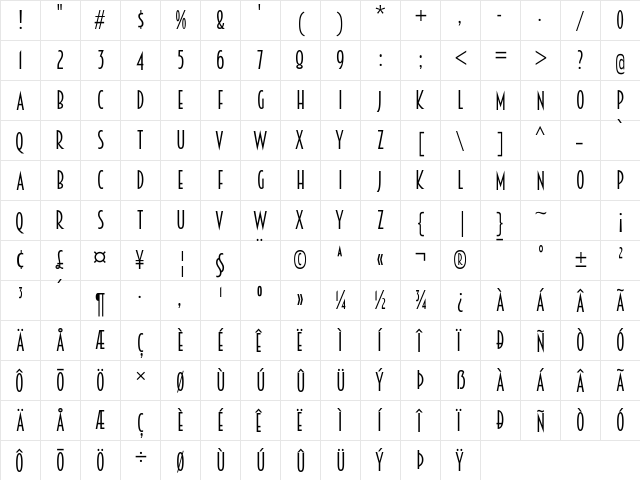
Breamcatcher Regular
Design Context for Breamcatcher Typeface
Breamcatcher is a composed and adaptable typeface that performs quietly and consistently across a wide range of design contexts.